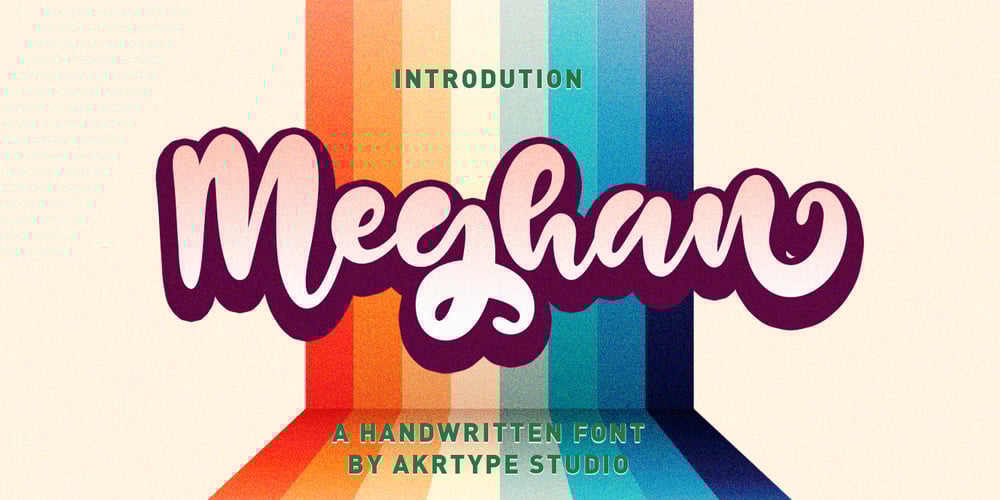
Meghan Font Family was designed by Ak Mal and published by Akrtype Studio. Meghan contains 1 styles and family package options. Meghan Smooth Handwritten Font is a casual and elegant handwritten font. Meghan Smooth Handwritten Font will look outstanding in any context, whether it’s being used on busy backgrounds or as a standalone headline!